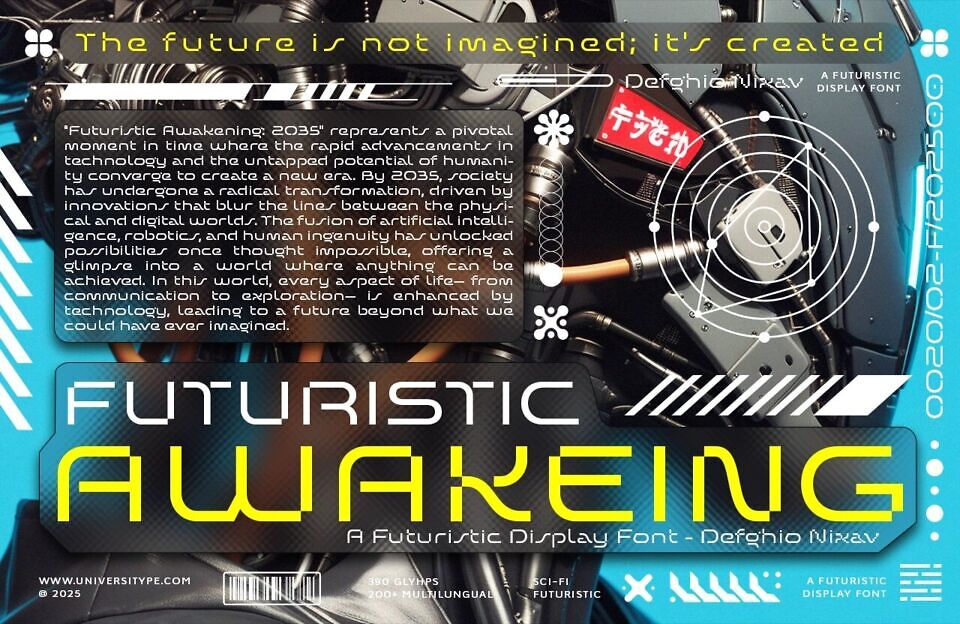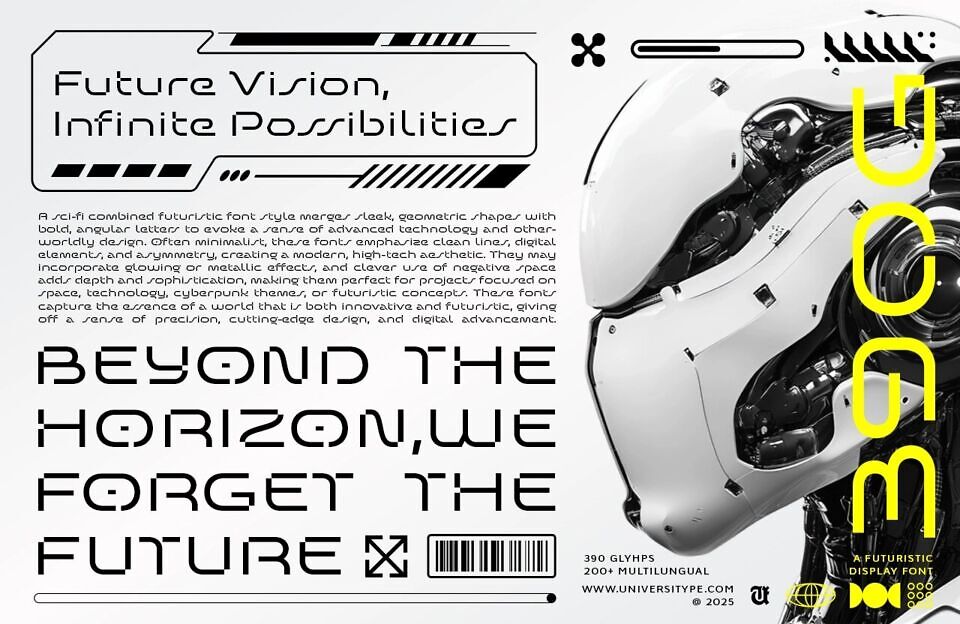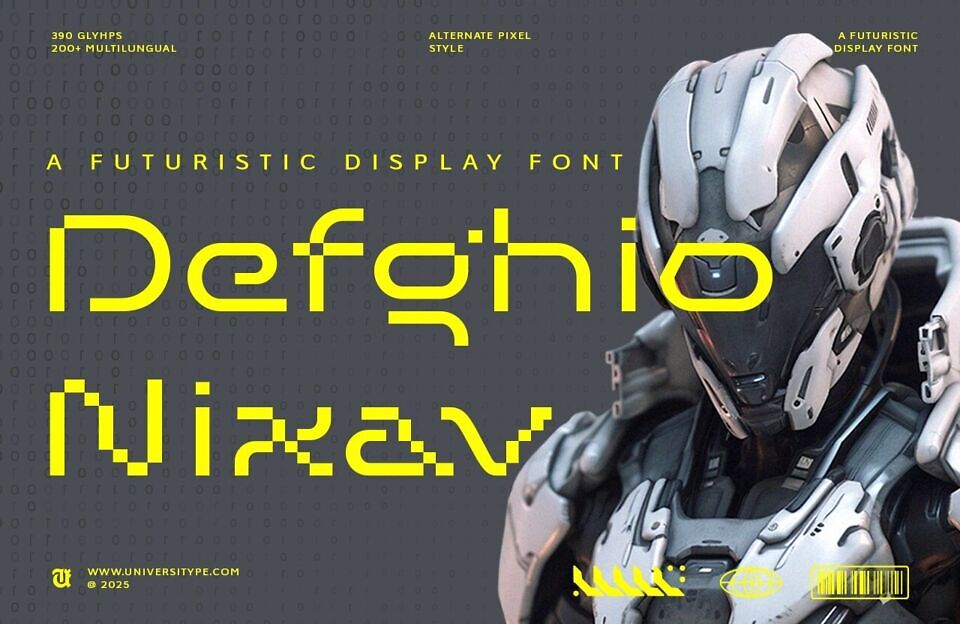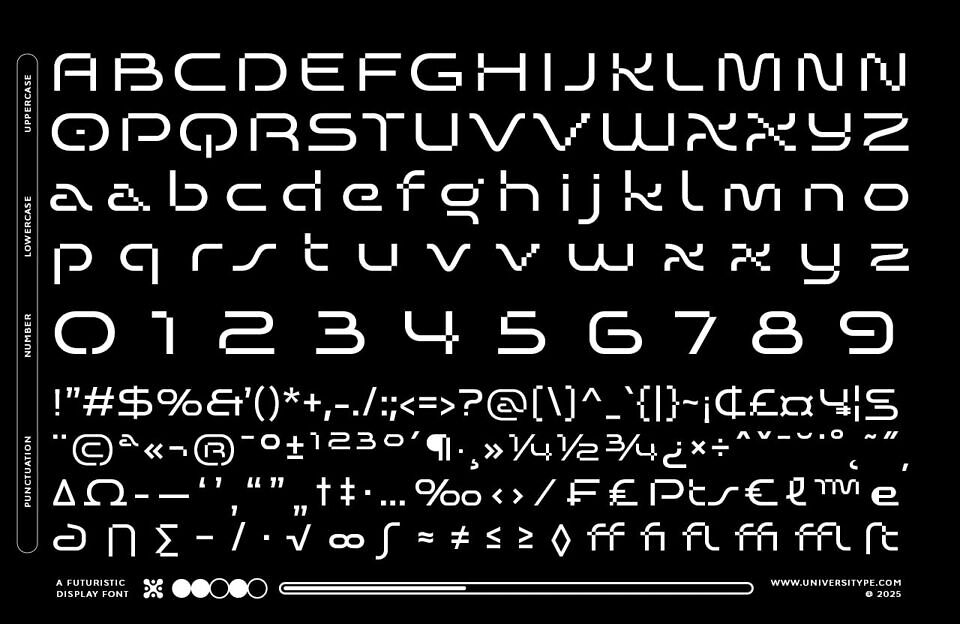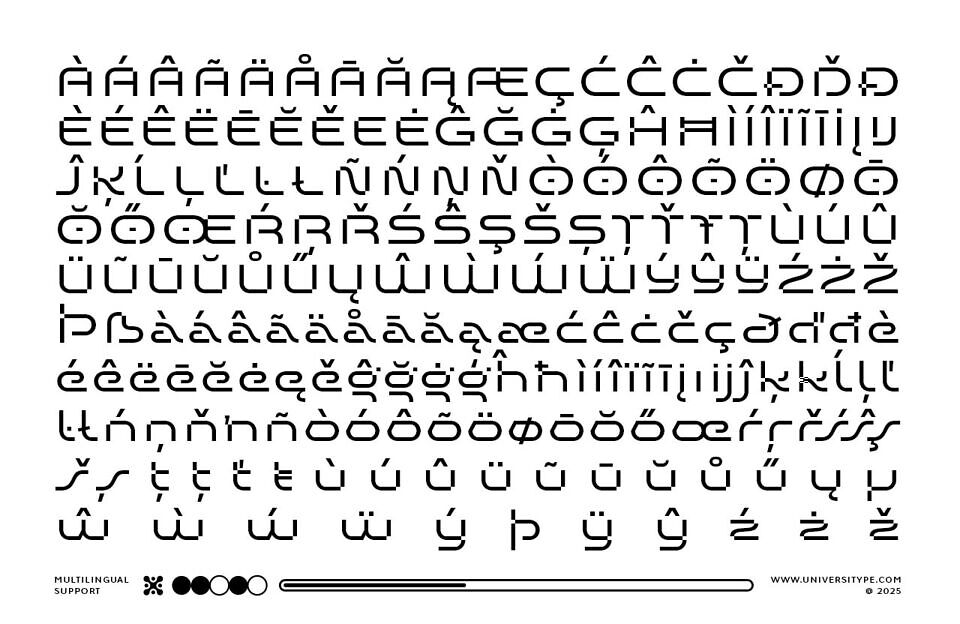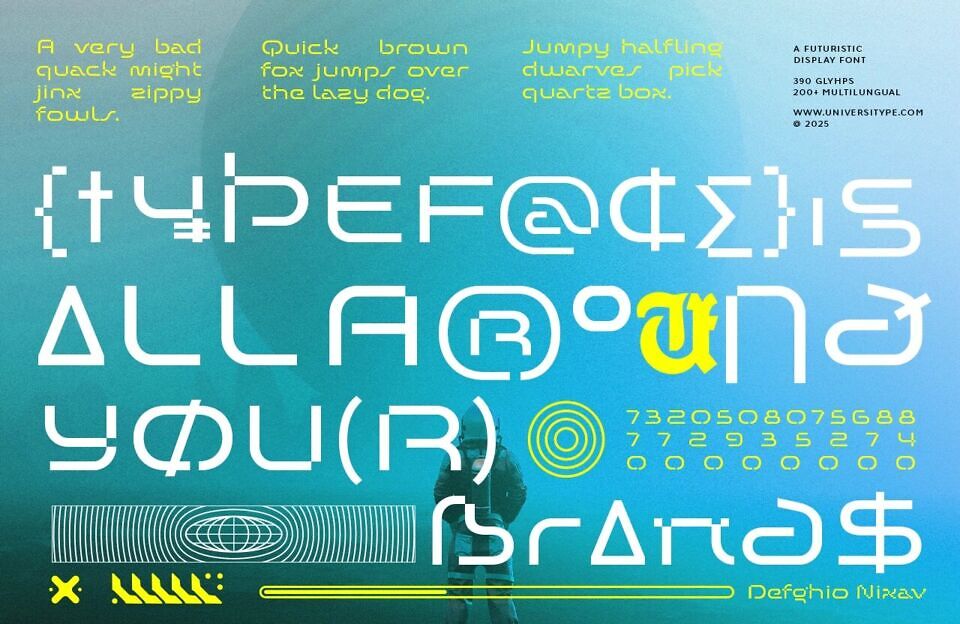
UT Defghio Nixav font draws inspiration from the fusion of advanced technology and human ingenuity, envisioning a future where physical and digital worlds converge. The design was influenced by futuristic architecture and sci-fi concepts, emphasizing precision, innovation, and the limitless possibilities of tomorrow.
UT Defghio Nixav is a cutting-edge futuristic display font designed to elevate projects with its bold, angular geometry and sleek, minimalist aesthetic. Merging advanced technology with otherworldly design, this font captures the essence of innovation, precision, and digital advancement. Perfect for visionary concepts, it blends glowing metallic effects, asymmetry, and clever negative space to create depth and sophistication.